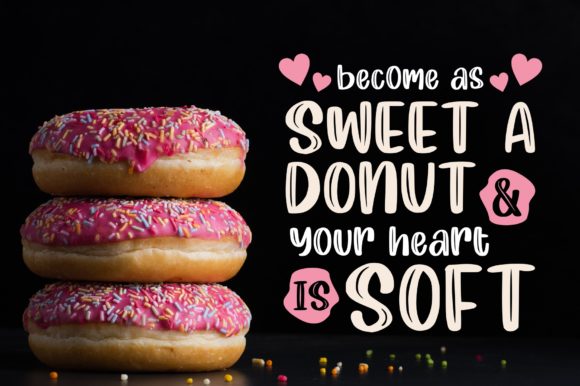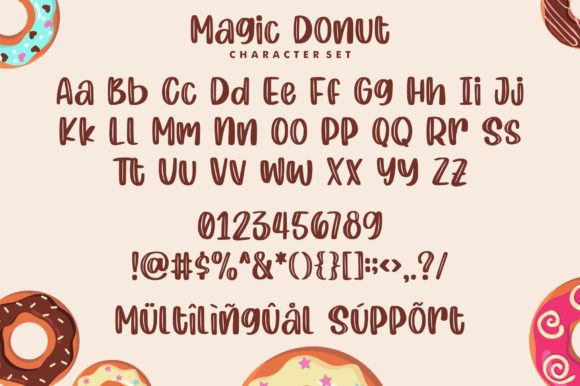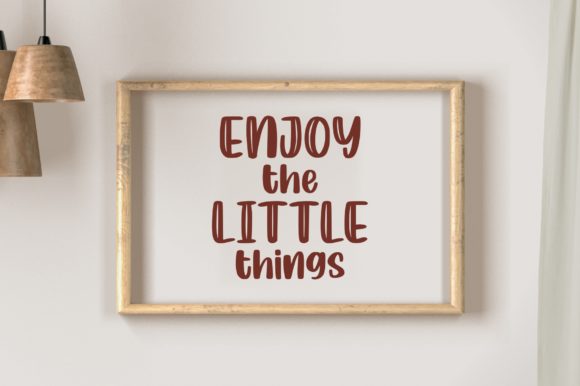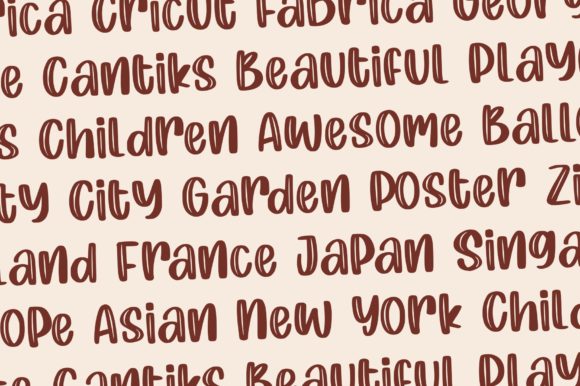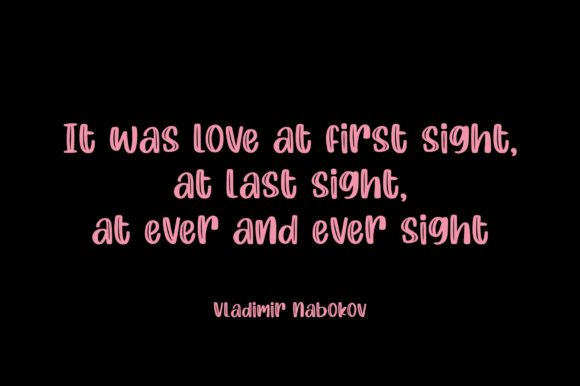
Introduction to Magic Donut Font
Have you ever found yourself stuck in a creative rut, scrolling through design inspiration boards, searching for that one element to elevate your project from meh to magical? That’s where the Magic Donut Font comes in – a delightful display font that adds an instant touch of whimsy and joy to your high-quality designs.
As designers, we’re always on the lookout for unique and versatile design resources that can help us stand out in a crowded creative landscape. The Magic Donut Font is the perfect addition to any free download collection, offering a transparent background that makes it easy to incorporate into any design project. Whether you’re working on a children’s book, a food blog, or a social media campaign, this charming font is sure to bring a smile to your audience’s faces.
- High-quality, unique font design perfect for creative projects, such as graphic design, digital art, and branding.
- Unique characteristics include a whimsical, hand-drawn feel and a wide range of customizable options.
Honest Review: Magic Donut Font
As a designer, I’m always on the lookout for high quality design resources to elevate my creative projects. I recently stumbled upon the Magic Donut Font, and I’m excited to share my honest review.
- ✨ Unique and playful design that’s perfect for adding a touch of whimsy to your project.
- ✨ High-quality glyphs that are clear and easy to read.
- ⚠️ Limited character set, which may not be suitable for extended text-based projects.
- ⚠️ Transparent background option only available for a limited number of colors.
Overall, the Magic Donut Font is a fun and creative design resource that’s perfect for adding a touch of personality to your projects. While it may not be suitable for every project, it’s definitely worth considering for your next creative endeavor. With a bit of creativity, you can work around its limitations and achieve some amazing results.
The Magic Donut Font is perfect for creating eye-catching headings and titles for your next creative project. Use it in social media graphics, blog posts, or marketing materials to create a unique visual identity. The font’s high-quality design makes it perfect for a variety of applications, from business to personal projects.
Alternatives to Magic Donut Font
Cookie Sans
Cookie Sans is a high-quality, modern sans-serif font ideal for creative projects that require a clean and minimalist look. It features a transparent background, making it perfect for use on colored backgrounds or as a design resource for branding and marketing materials.
When to use: Cookie Sans is suitable for projects that require a neutral, yet visually appealing font. It is a great alternative to Magic Donut Font for designers who want a more subtle look without sacrificing readability.
Comparison: Cookie Sans has a more straightforward design compared to Magic Donut Font, which has a more playful and whimsical feel. While Magic Donut Font is ideal for projects that require a touch of magic, Cookie Sans is better suited for projects that require a professional and modern look.